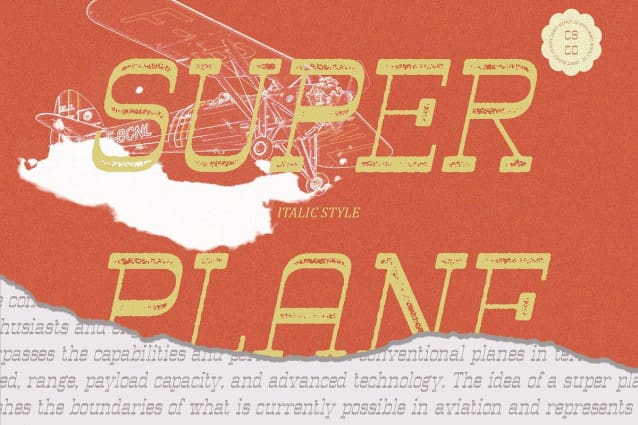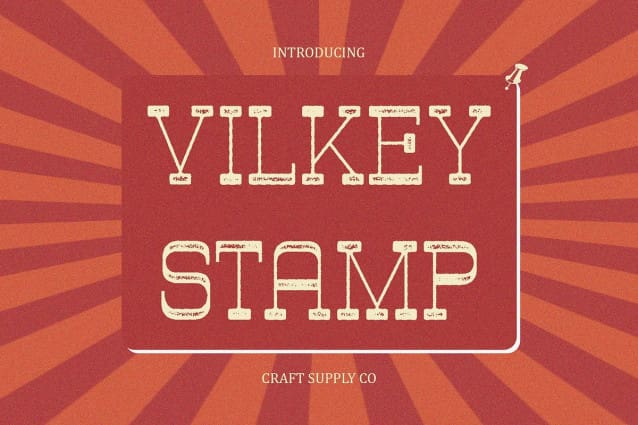
Vilkey Stamp Font
Vilkey Stamp Font: Bold Statement in Reverse Contrast.  Dynamic Reverse Contrast Vilkey Stamp features a striking slab serif design with reverse contrast, where thick strokes reside in the horizontal elements while the vertical strokes are slim. This unique feature adds a bold and impactful visual contrast to the font.
Stamp Effect for Emphasis The font is further enhanced with a stamp effect, giving it a rugged and textured appearance reminiscent of stamped ink impressions. This effect adds depth and character to the font, making it ideal for grabbing attention in display applications.
Perfect for Display Usage Tailored for display purposes, This font excels in making a statement. Whether used in headlines, posters, or signage, its bold and distinctive style ensures that your message stands out effectively.
Versatile Application Despite its bold and rugged appearance, This font offers versatility in application. It can be employed in a variety of design contexts, from vintage-inspired projects to modern and edgy designs, adding a touch of uniqueness to any visual composition.